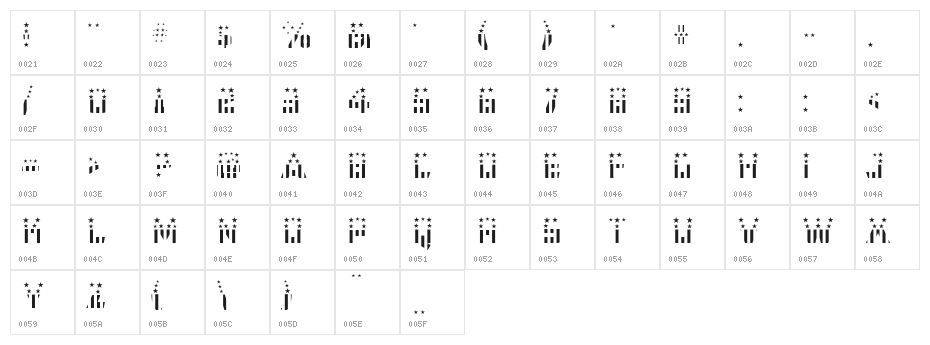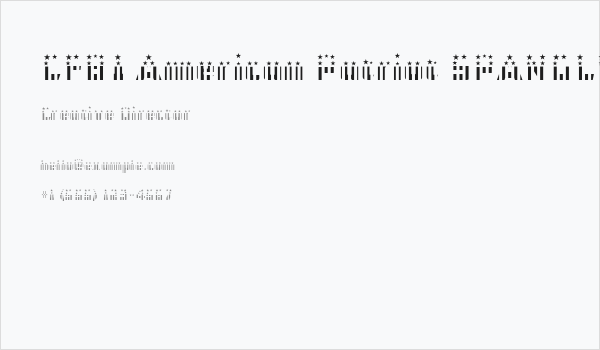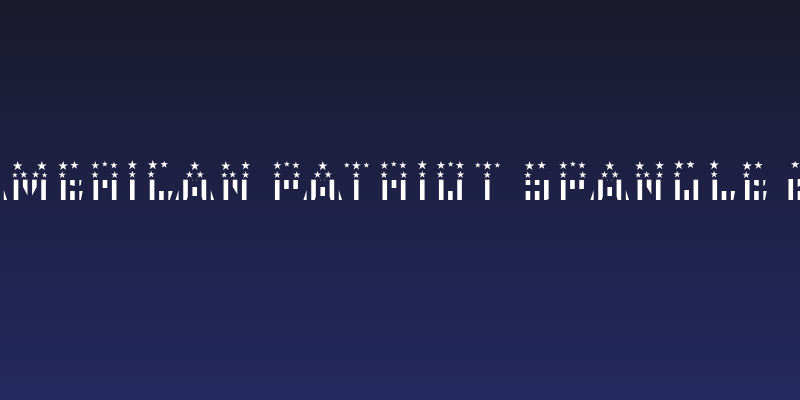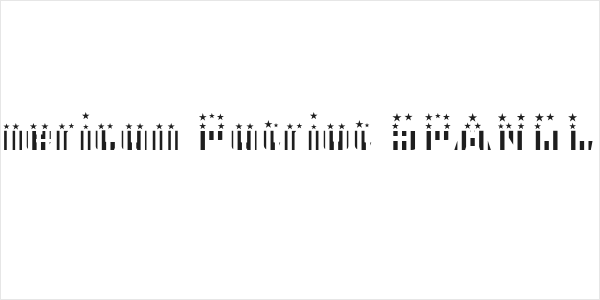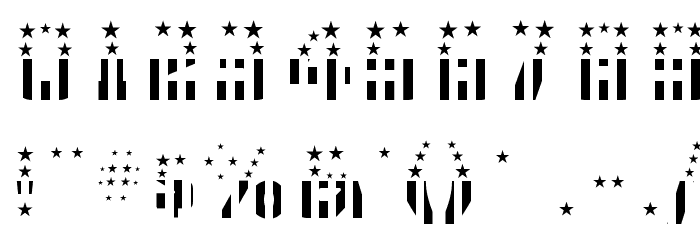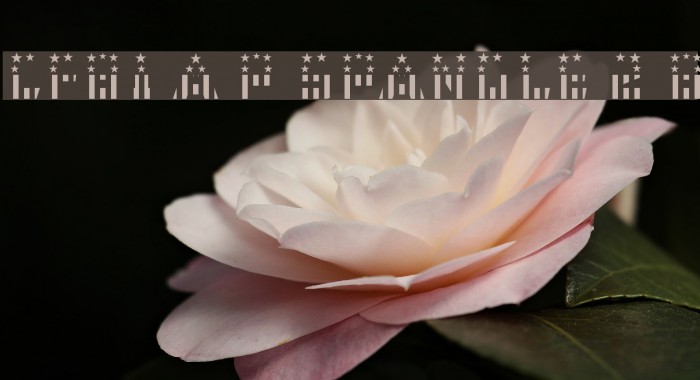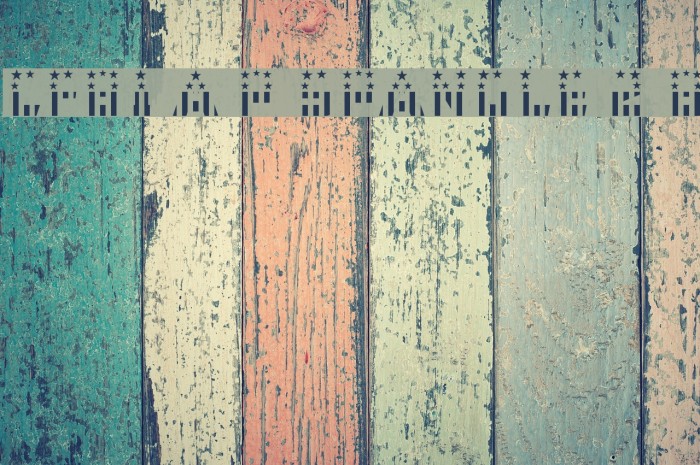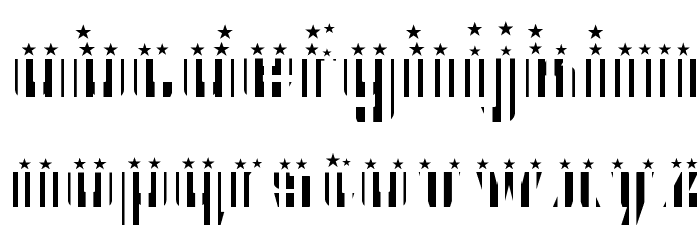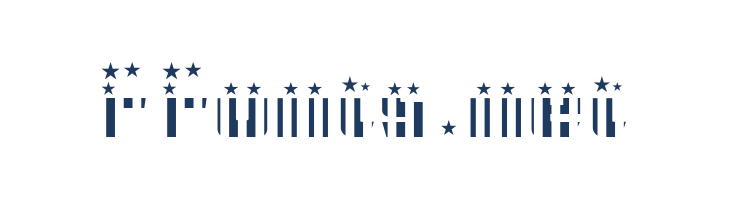
CFB1 American Patriot SPANGLE 2 Bold Font
CFB1 American Patriot SPANGLE 2 Bold Description
This font features a bold and striking design with a patriotic theme, incorporating stars into each character. The letters are uppercase and lowercase, with numbers and special characters also included. The stars are prominently placed above each character, giving it a decorative and celebratory appearance. The overall style is reminiscent of American patriotic motifs, making it ideal for themed projects. The characters are bold with a consistent thickness, and the spacing between them is normal, ensuring readability while maintaining its decorative flair.